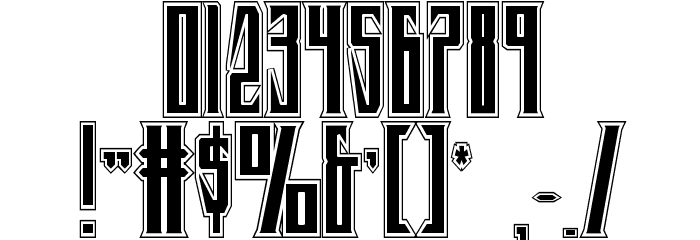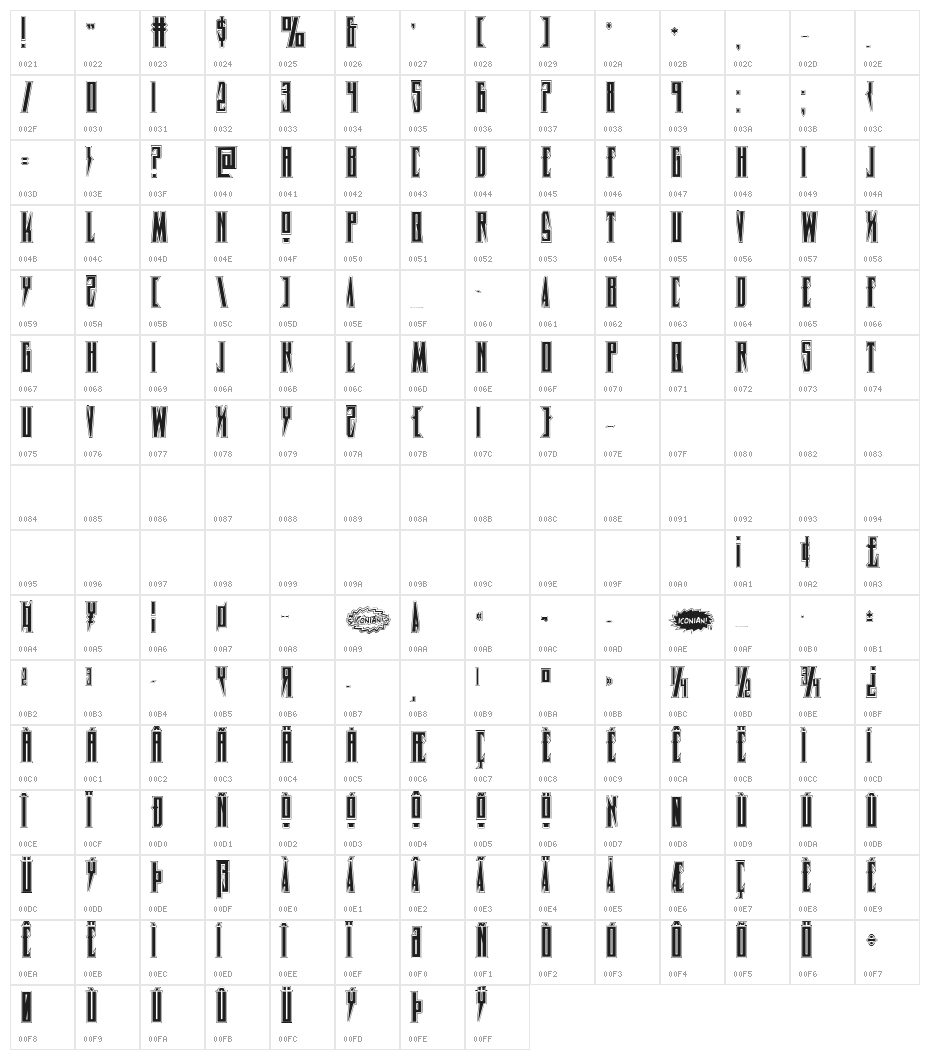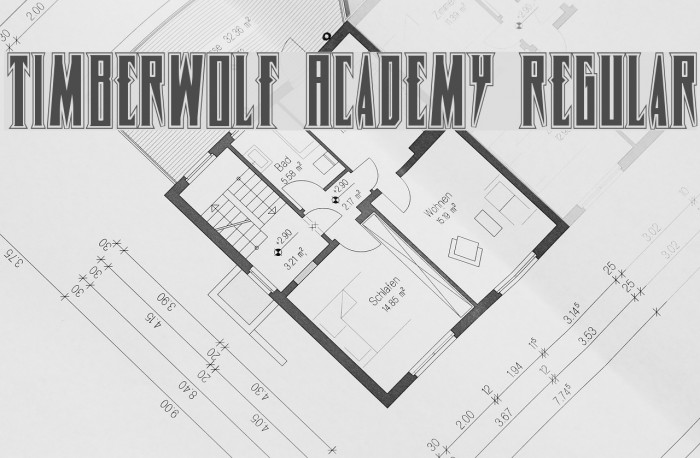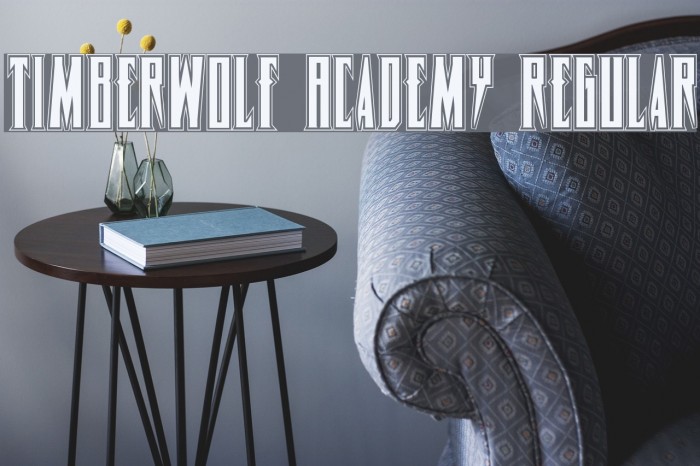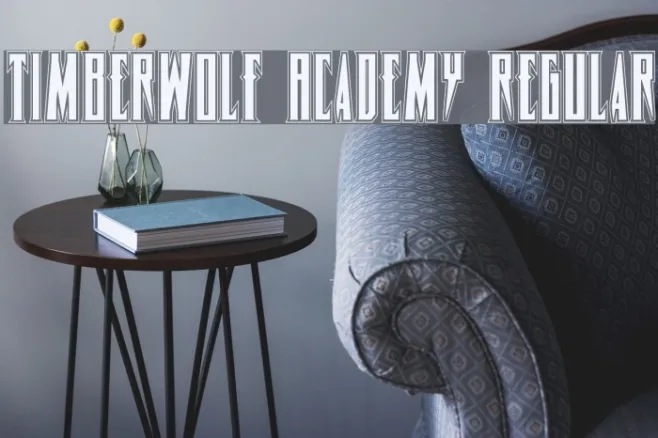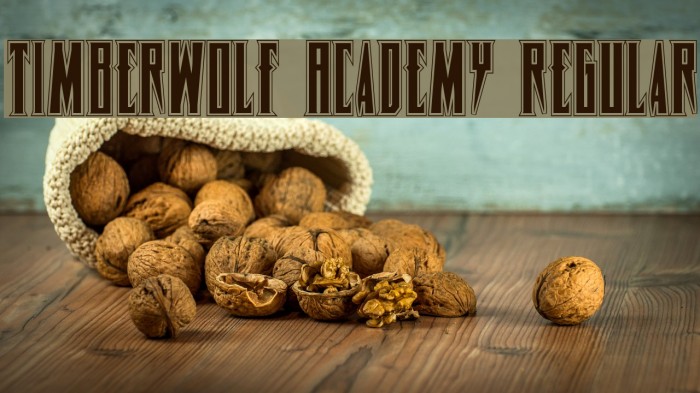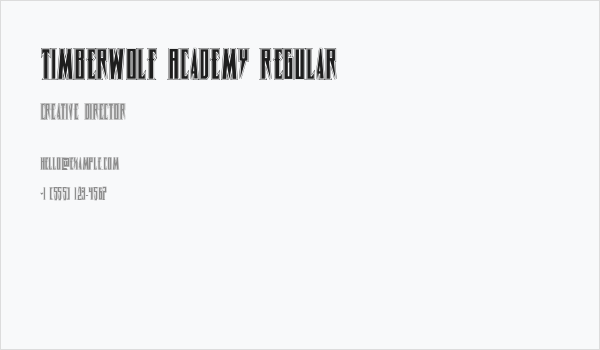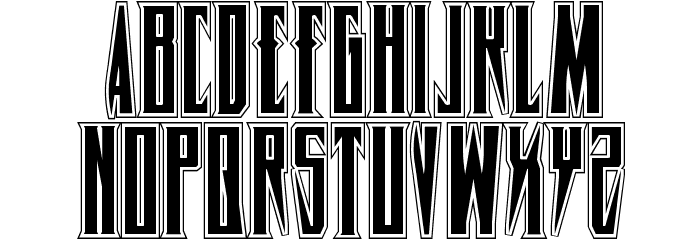
Timberwolf Academy Regular Font
Timberwolf Academy Regular Description
This font features a bold, decorative style with a strong presence. The characters are tall and narrow, with sharp, angular edges and a distinct outline that adds depth and dimension. The uppercase letters are particularly striking, with a gothic influence that gives them a dramatic flair. The lowercase letters maintain the same boldness and angularity, ensuring consistency throughout the typeface. Numbers and special characters are designed with the same attention to detail, making them equally impactful. This font is ideal for projects that require a strong visual impact and a sense of boldness.